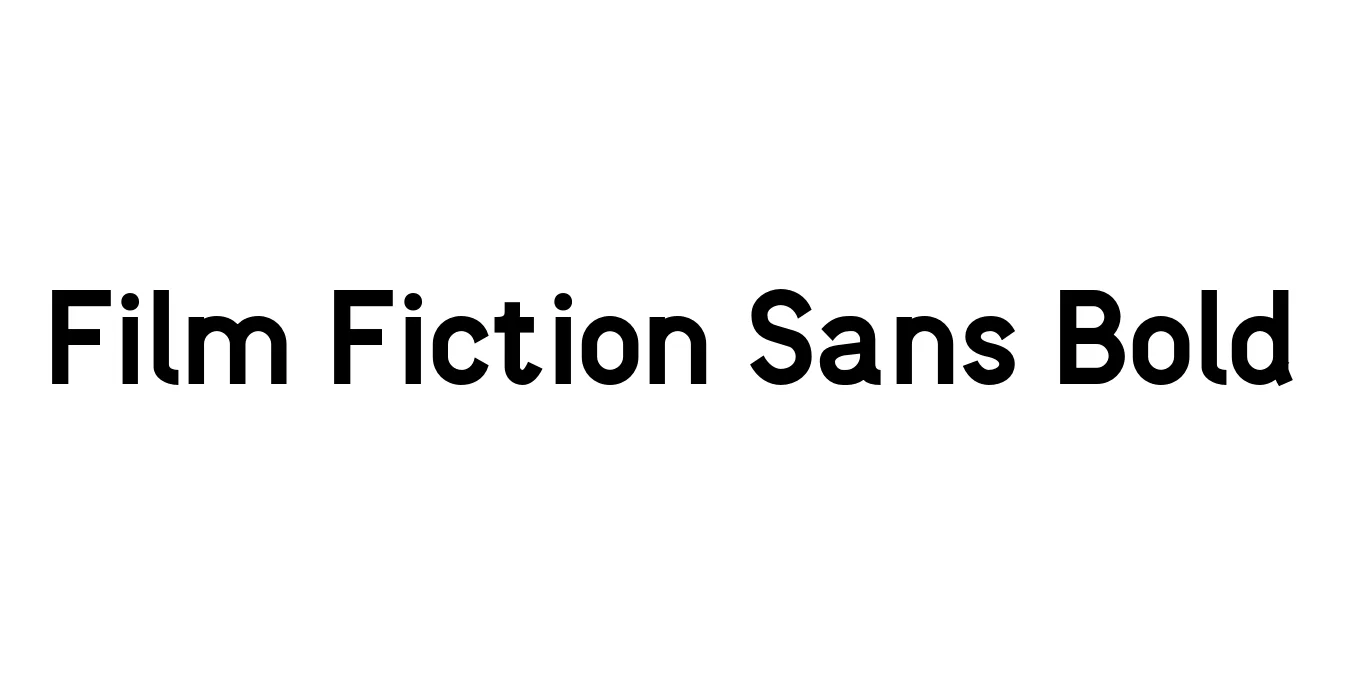
Film Fiction Sans Bold
Designed by Skyhaven
Film Fiction Sans Bold is a contemporary sans-serif typeface meticulously crafted to capture the essence of modern cinema and high-end editorial design. This font features a geometric foundation with clean, precise lines that provide a sophisticated and professional appearance. The Bold weight is specifically engineered to command attention, offering a robust visual density that remains highly legible across various screen resolutions and print formats.
The versatility of this typeface makes it an essential tool for designers looking to balance minimalism with a strong visual impact. By utilizing a balanced x-height and open apertures, Film Fiction Sans Bold maintains its clarity even in crowded layout environments. It has become a popular choice for title sequences, digital branding, and promotional advertising where a sense of authority and modern elegance is required.
Film Fiction Sans Bold Best Uses
Ideal for high-impact title sequences and theatrical promotional materials.
Perfect for tech or luxury brand identities requiring a clean and authoritative look.
Excellent for headers, call-to-action buttons, and hero section typography.
High readability for punchy graphics and Instagram storytelling layouts.